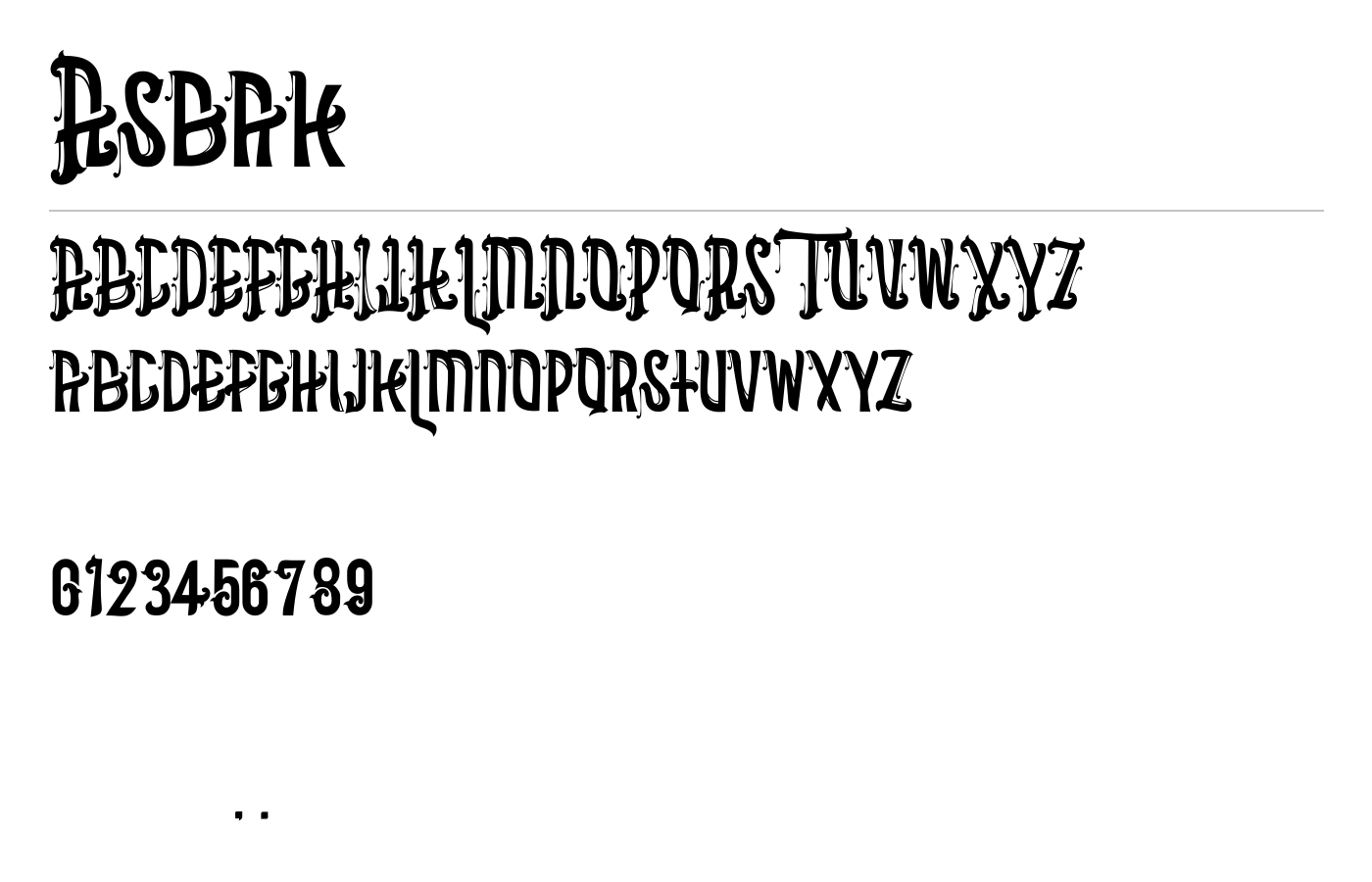
Asbak Font is a decorative serif typeface with a distinctive vintage flair, featuring intricate, bracketed serifs and strong stroke contrast that create a bold yet elegant appearance. Its condensed, upright letterforms and unique ornamental details make it ideal for eye-catching headlines, logos, and packaging where a dramatic and classic aesthetic is desired. This font works best in artistic or retro-inspired designs, bringing a sense of personality and sophistication to creative projects.
Asbak Font
About Asbak Font